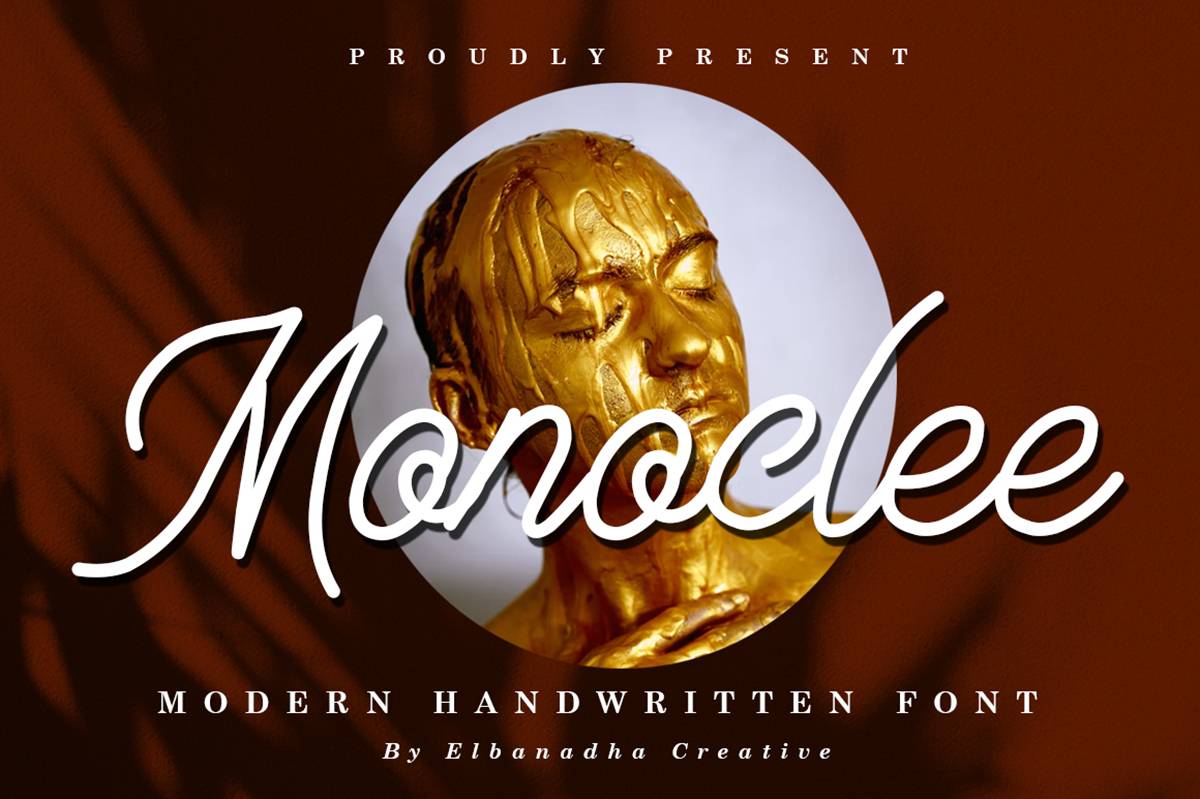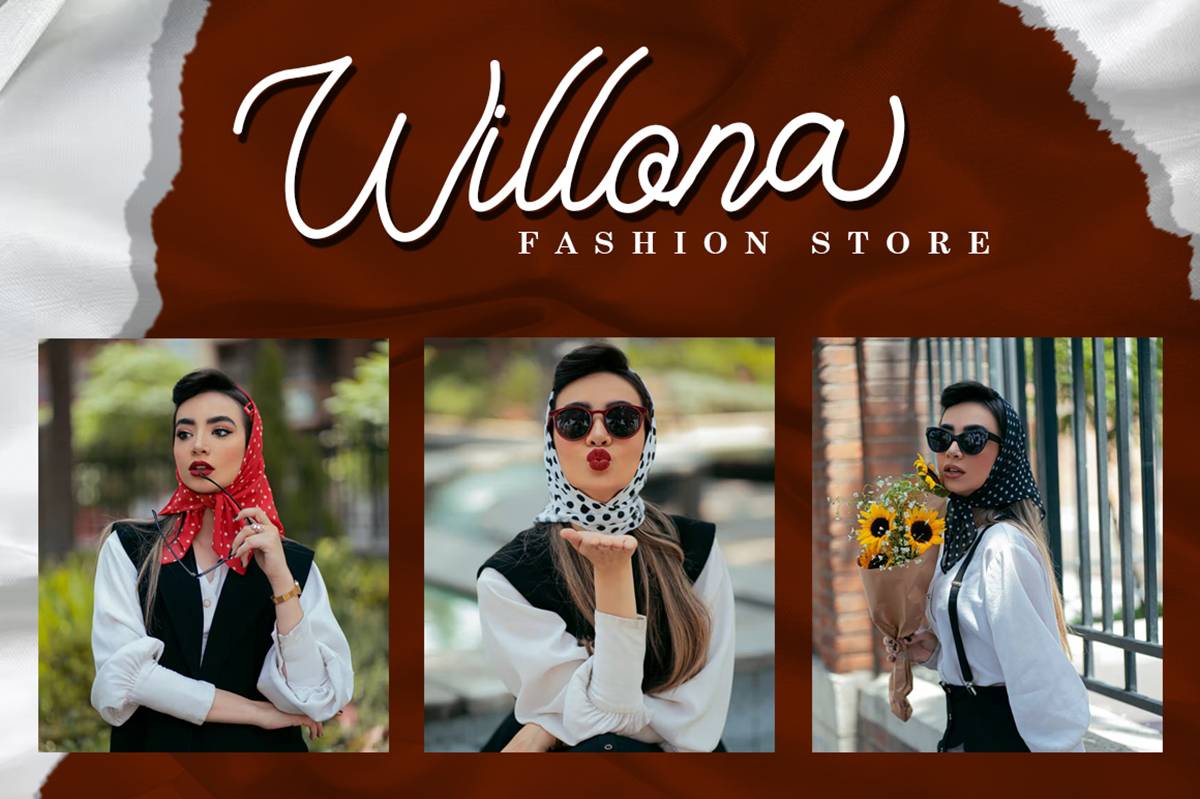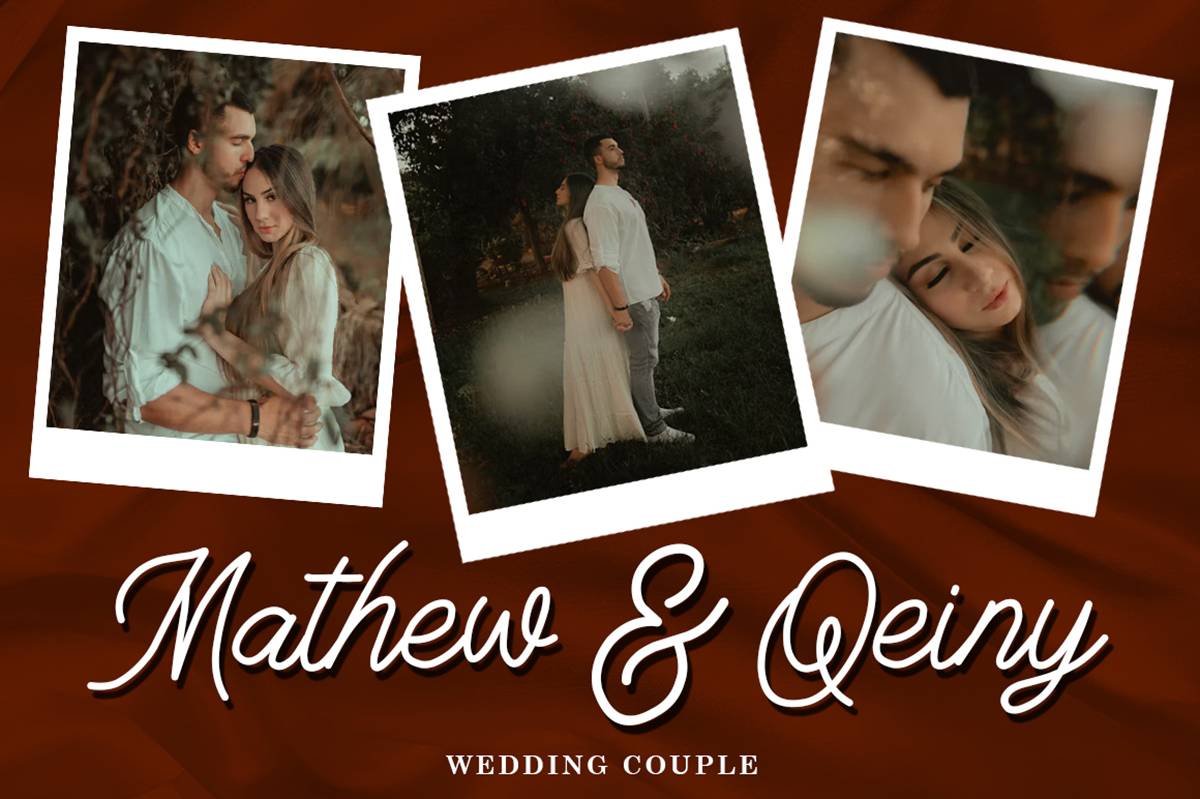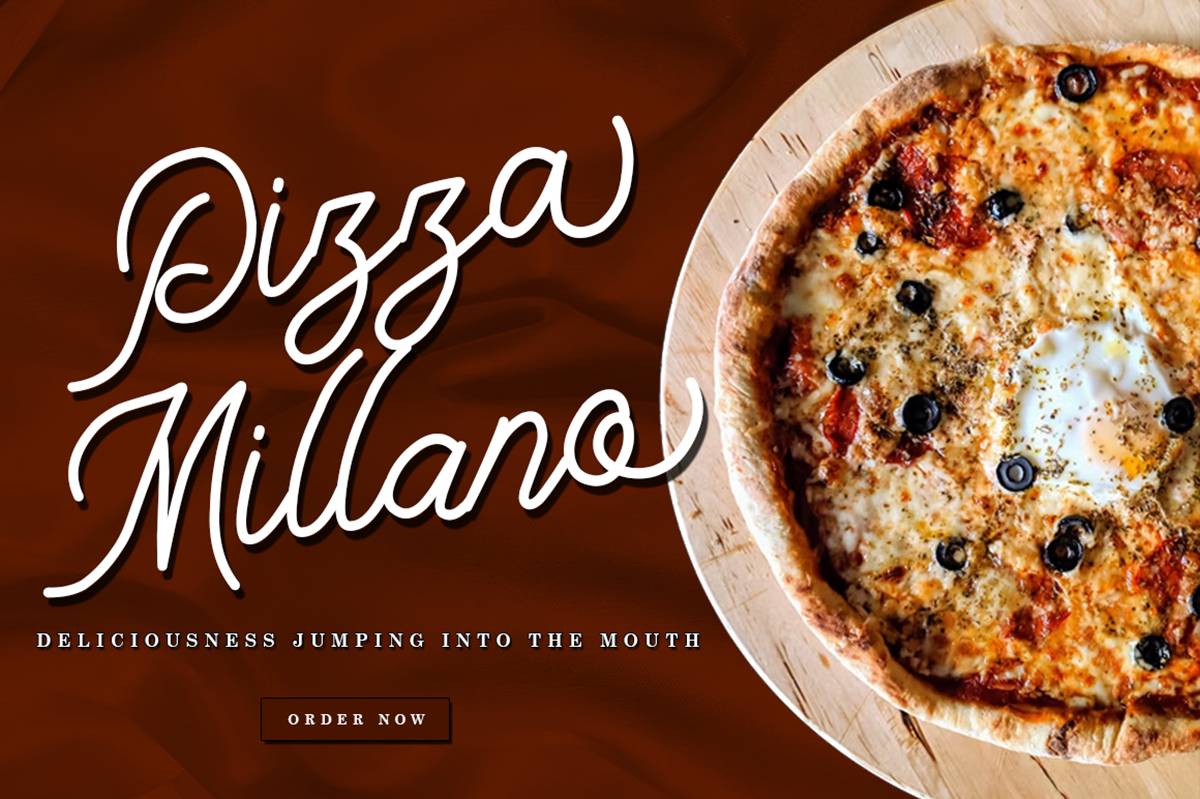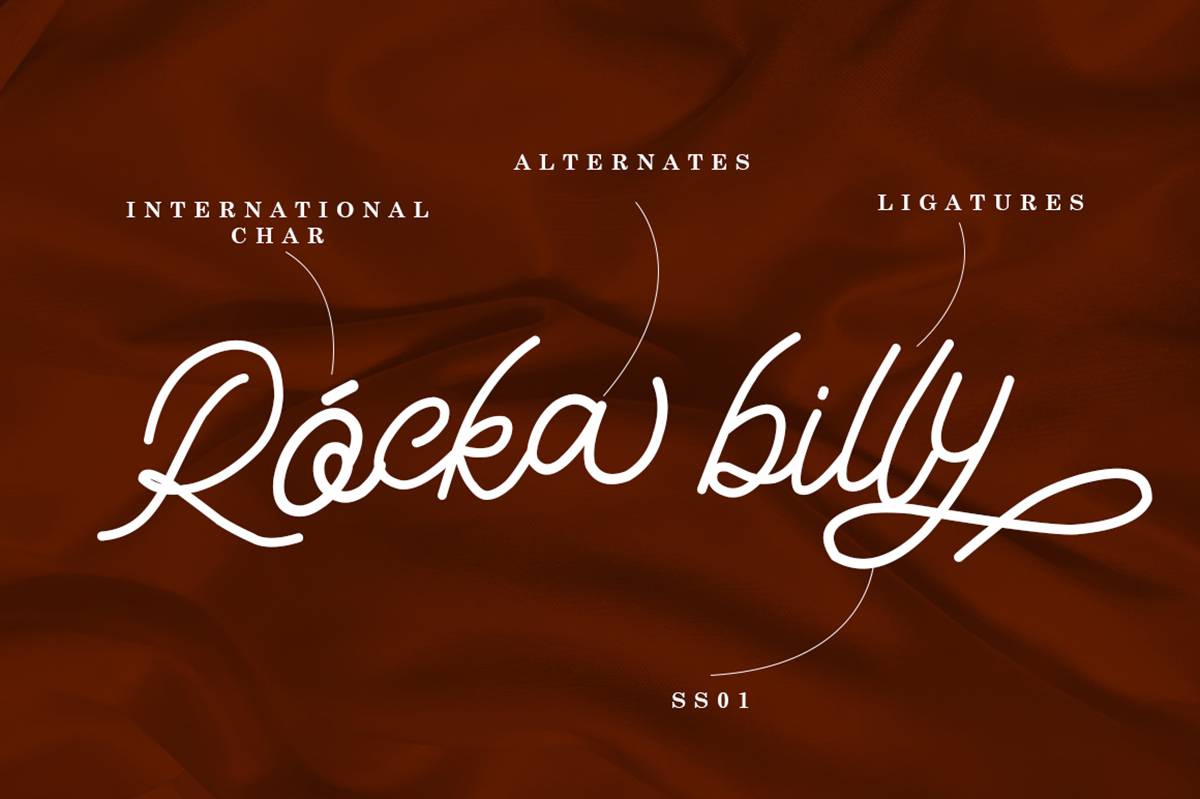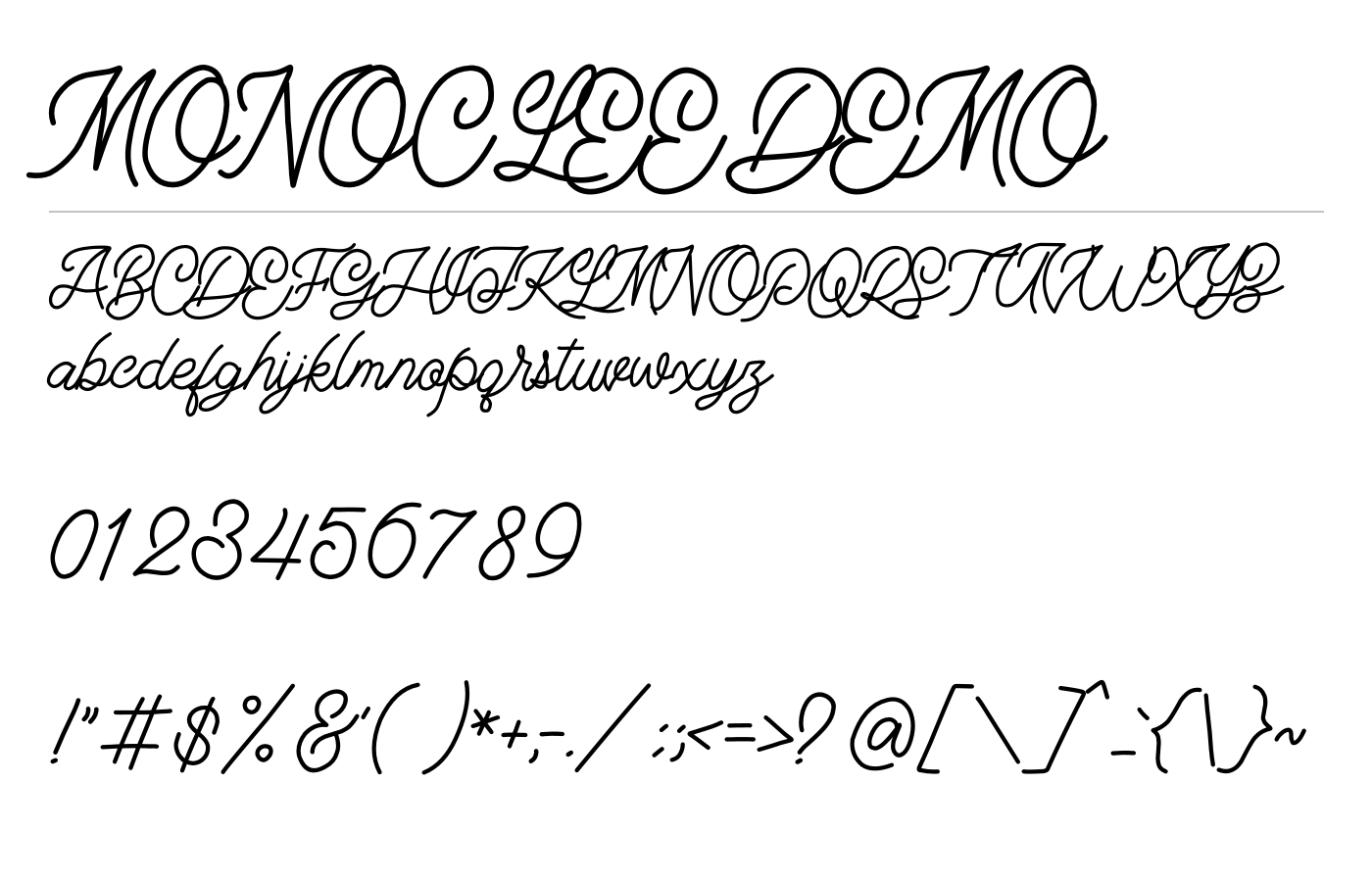
Monoclee is a delicate script font with a graceful, handwritten feel characterized by its elegant, flowing strokes and consistent thin weight. Its smooth, connected letterforms and moderate x-height create a refined and approachable style, ideal for adding a personal touch to invitations, branding, and feminine or artistic design projects. This font works beautifully in contexts where a stylish yet readable script is needed to convey sophistication and warmth.
Monoclee Font
About Monoclee Font
| Font family | Monoclee Font |
| Designer | Elbanadha Creative |